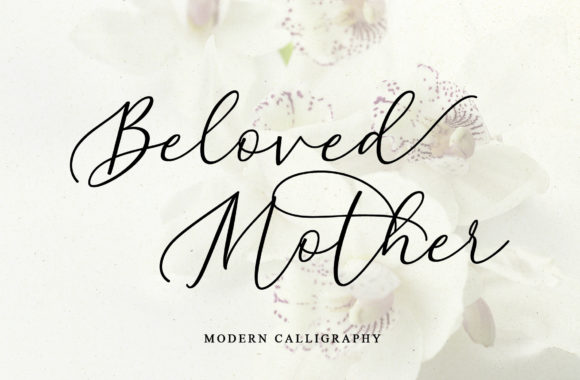
The Elusive Perfect Font: My Journey with Beloved Mother
I’ll never forget the struggle I faced while working on a branding project for a luxury client. The logo needed to exude elegance, sophistication, and a touch of whimsy. Hours were spent scrolling through font libraries, but nothing seemed quite right. That was until I stumbled upon Beloved Mother, a chic, refined script font that instantly captured the essence of the brand. In this article, I’ll share my experience with this beautiful font, its features, and how to make the most of it in your designs.
An Honest Review of Beloved Mother
- 💫 Stylish alternates and ligatures that add a touch of sophistication to any project
- ✅ Elegant and refined, perfect for luxury brands, weddings, and high-end events
- 🎨 Highly versatile, suitable for logos, titles, and body text
- 👍 Exceptional craftsmanship, with attention to detail in every glyph
While Beloved Mother is an exceptional font, there are a few minor limitations to consider:
- 🤔 Limited availability of condensed or extended versions, which may limit its use in certain layouts
- ⚠️ Some users may find the font too ornate or delicate for very small font sizes
The Designer Inspiration Behind Beloved Mother
According to the font’s creators, Beloved Mother was inspired by the classic script fonts of the past, with a modern twist. The designers aimed to create a font that would evoke a sense of luxury, sophistication, and warmth. Through its elegant lines, beautiful ligatures, and stylistic alternates, Beloved Mother embodies the perfect balance of refinement and creativity.
Q: What type of projects is Beloved Mother best suited for?
A: Beloved Mother is an excellent choice for luxury brands, weddings, high-end events, and creative projects that require a touch of sophistication.
Q: Is Beloved Mother a difficult font to read?
A: While Beloved Mother is an ornate font, it is still highly legible, even at smaller font sizes. However, it’s recommended to use it for titles, headings, and body text where readability is not a concern.